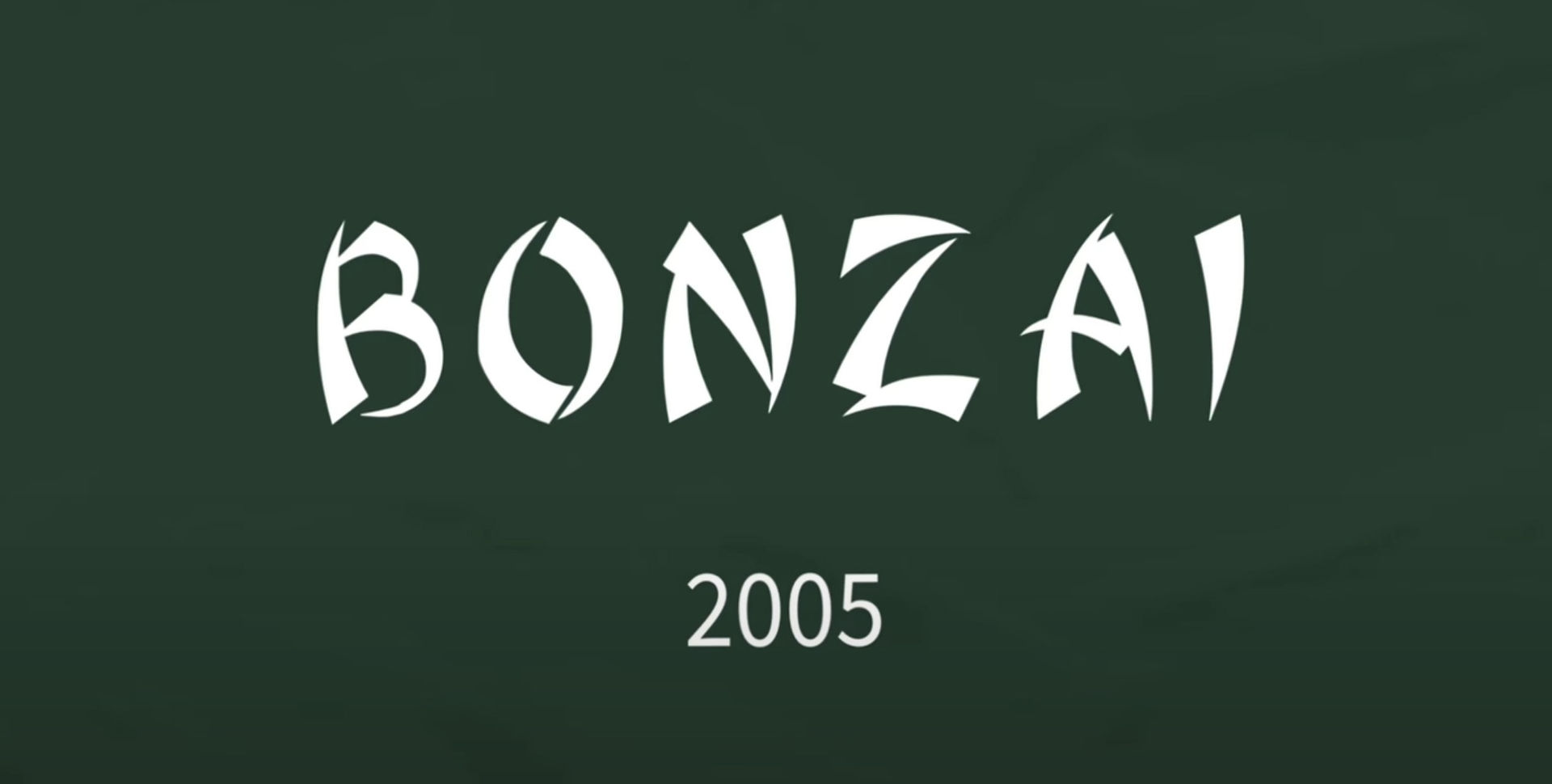
Your analysis with Linus Boman on “chop suey” fonts has been eye opening on the existence of typographic racial stereotypes and biases. Could you speak to us a little about that? Apart from chop suey, what other typographical pitfalls have you identified linked to this approach?
My first experience with Chop Suey fonts in Chinatown sparked my interest in learning the intricate social relationships and government infrastructures built by type, and the reciprocal relationship between type and identity. I found ethnic and national stereotypes in typography such an overlooked subject, so I started collecting my own archive of ethnic fonts with my phone camera. Before I worked with Linus on the video, I had done projects related to the typographic characteristics of Chinatown menus, and had been following multi-lingual designers who touch on this matter. Exploring the intricate details of typefaces in different ethnic contexts was a fascinating journey for me, and I'm grateful for the opportunity to share my findings with others!
Linus reached out in the summer of 2021 asking if I was interested in collaborating with him on a video about ethnic and national stereotypes in typography. Being such a huge fan of his channel, I immediately agreed. The bulk of my research focused on the history of Chop Suey fonts. I conducted a typography audit, traced the origin of Chop Suey fonts, and examined the remedy of this stereotyped font genre. The audit was the most intriguing part. As I examined hundreds of fonts that attempted to resemble a script that was so close to home, I questioned our perception of culture through typography.
The earliest Chop Suey fonts were not designed by Asians, nor were they sold to Asians. The entire transaction was orchestrated by people who were irrelevant to Asia; the tourist gaze surrounding this business was undeniable. Now, as businesses owned and operated by Asians have blossomed worldwide, we have also seen fascinating new and genuine expressions of what is considered authentically Asian.
Stills from "How this font became the face of Chinese food in America”
by Linus Boman
Asian American culture encompasses countless artifacts and practices that convey and construct meaning. Immigrants have pioneered menus, restaurant signs, new dishes, and business practices, embedding typography into these constructed cultural meanings.
The history of type is not only about aesthetics, but also the stories and issues behind them. It is our job to recognize the stories and issues behind typography, and to use this knowledge to promote awareness and diversify our design landscape. There are other typographic issues similar to the Chop Suey font situation. Scripts such as Devanagari, Cyrillic, Thai, and Greek all have their own “stereotypical” counterparts. Even a culture's essence can be manifested into an overly superficial, and often inappropriate, type genre that inaccurately portrays a community as a single entity. Rob Giampietro's essay on Neuland and Lithos as Stereotypography is a great read on this.
To put it shortly: exposure through both readings and observations. As a student, I have been exposed to design readings from various perspectives throughout history, which has helped me to develop my critical thinking skills. My first type design workshop with Juan Villanueva was an eye-opening experience, as I learned not only the basics of design techniques, but also the debates and discussions that exist in this community. This applies not only to Chop Suey fonts, but also to type design issues related to diversity, accessibility, and inclusion. I also believe that it is important to be able to recognize typographic vernaculars. Type design is not a closed craft; it is one of the visual indicators of a society's infrastructure, culture, and history. If students are taught to actively observe the vernacular typography around them, I am confident that they can come to their own conclusions about how type and culture shape each other.
"Type design is not a closed craft;
it is one of the visual indicators of a society's infrastructure, culture, and history.”
In both your work as a type designer and as a graphic designer, organic forms and nature inspiration are often an important element. Is it a conscious choice, or is it rather you following your design instinct?
A fascinating thing about finding inspiration is that great ideas often come from subjects far removed from one's field. When I design typefaces and identities, nature has become a major source of inspiration for me. Besides designing, I am also an avid birder. My birding trips in different parts of the world have certainly influenced my way of thinking about forms.
Moreover, there are still plenty of environmental issues that need to be addressed and solved, so one of my goals is also to use designs inspired by organic forms to draw attention to the planet we inhabit.
Your work is heavily centred sits in the middle between hand-lettering, illustration and type design. Can you tell us more about your process of designing letters, and your relation with the contemporary typeface design scene?
Ultimately, everything is a pattern. Brands are patterns or system based. Lettering and type design are seemingly contradictory in this regard because the former is system based while the latter is illustration based. However, with technology becoming so sophisticated, it’s really blurring that line enabling type design to take on more of an illustrative aesthetic. Personally, I find this incredibly exciting to see.